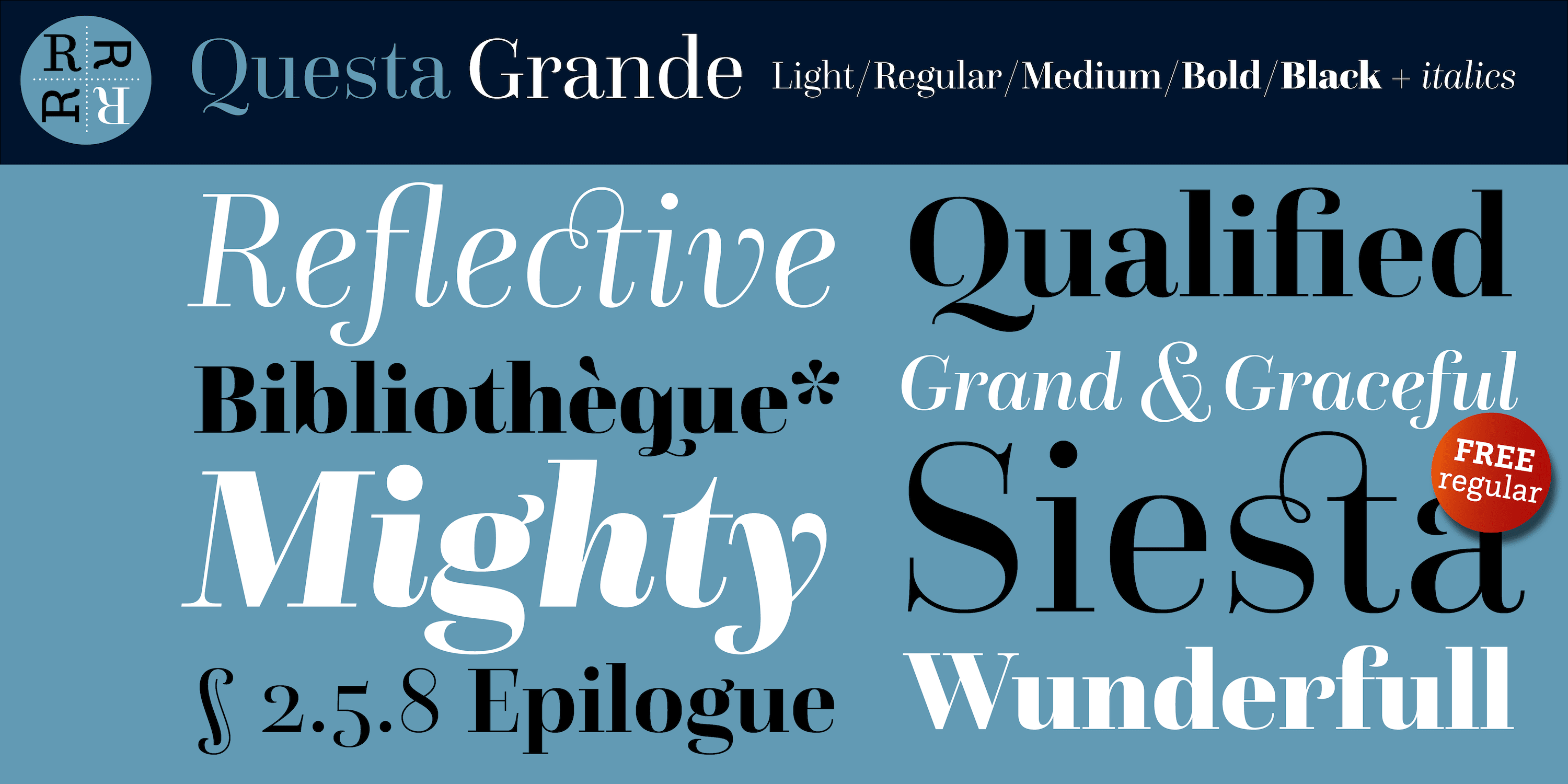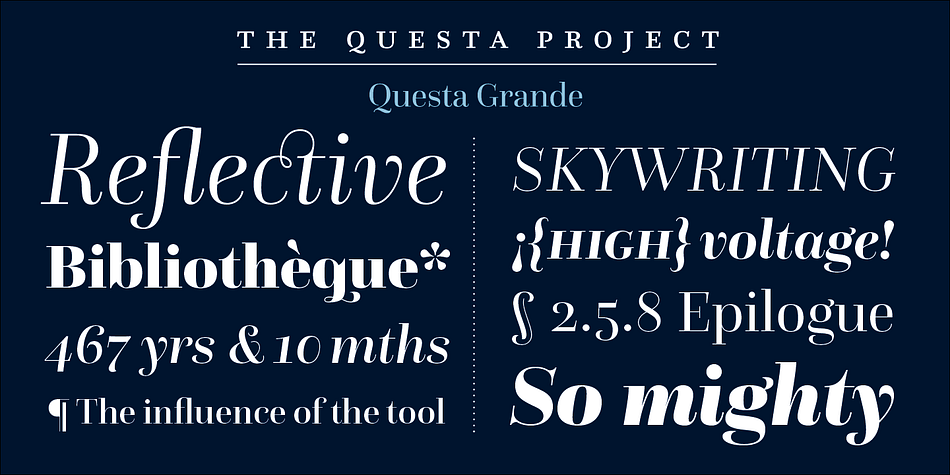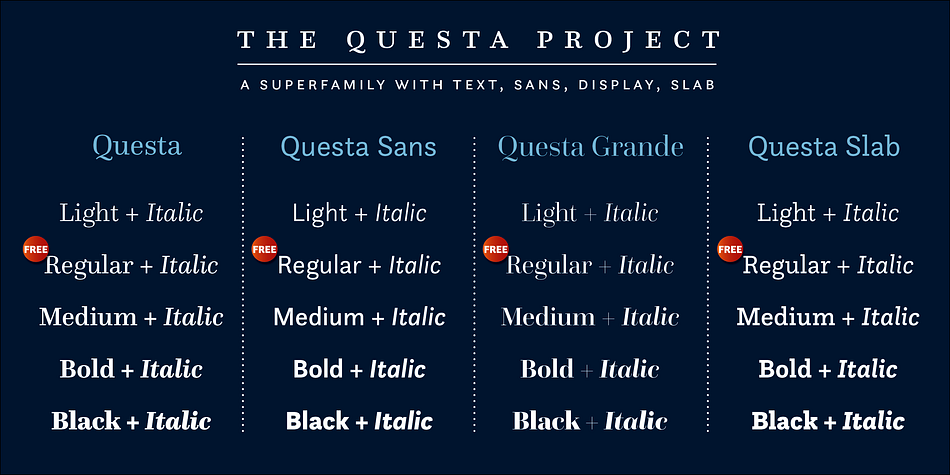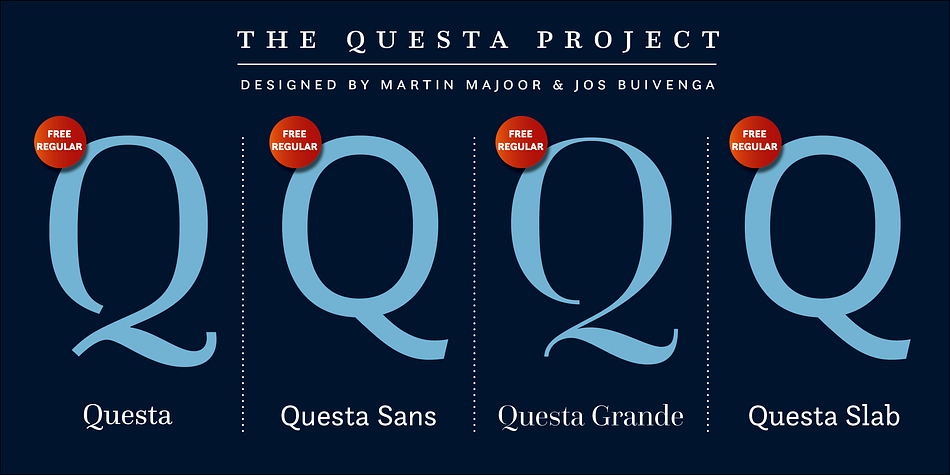
Questa Grande is a serif font family. This typeface has ten styles and was published by The Questa Project.
Questa Grande is a display font. It is part of a type system called The Questa Project, containing a serif, a matching sans and a matching display version.
The inclusion of small caps, four sets of figures, ligatures and extended language support makes Questa a real workhorse typeface.
The Questa Project is a collaborative type design project by Jos Buivenga and Martin Majoor.